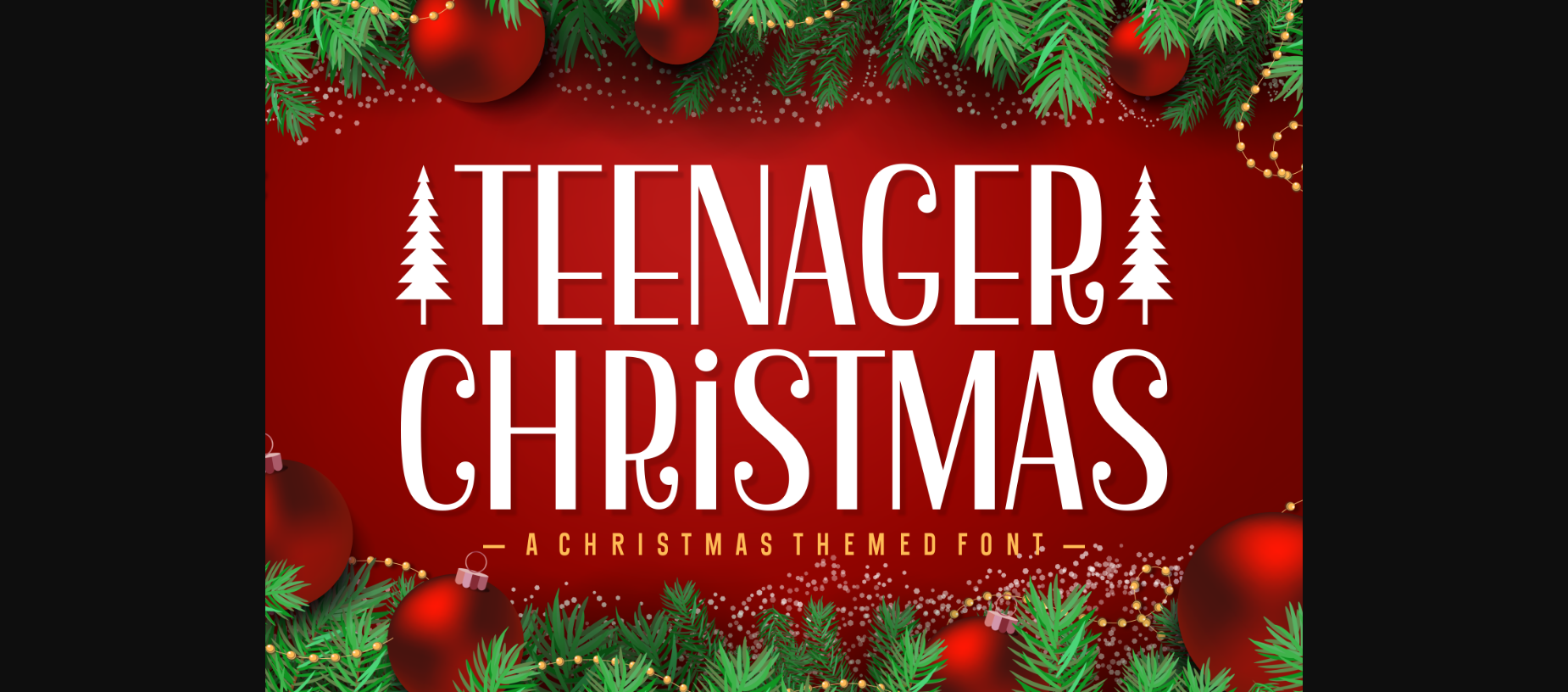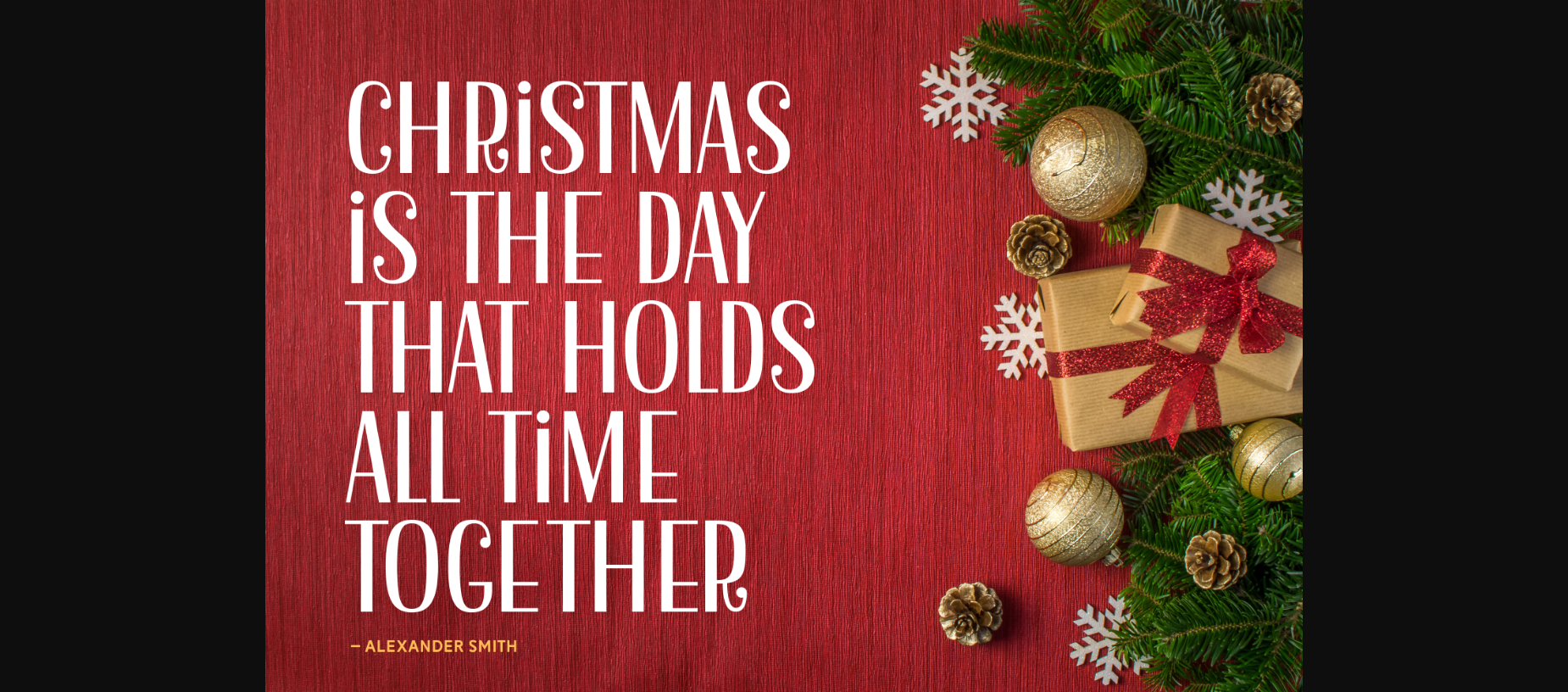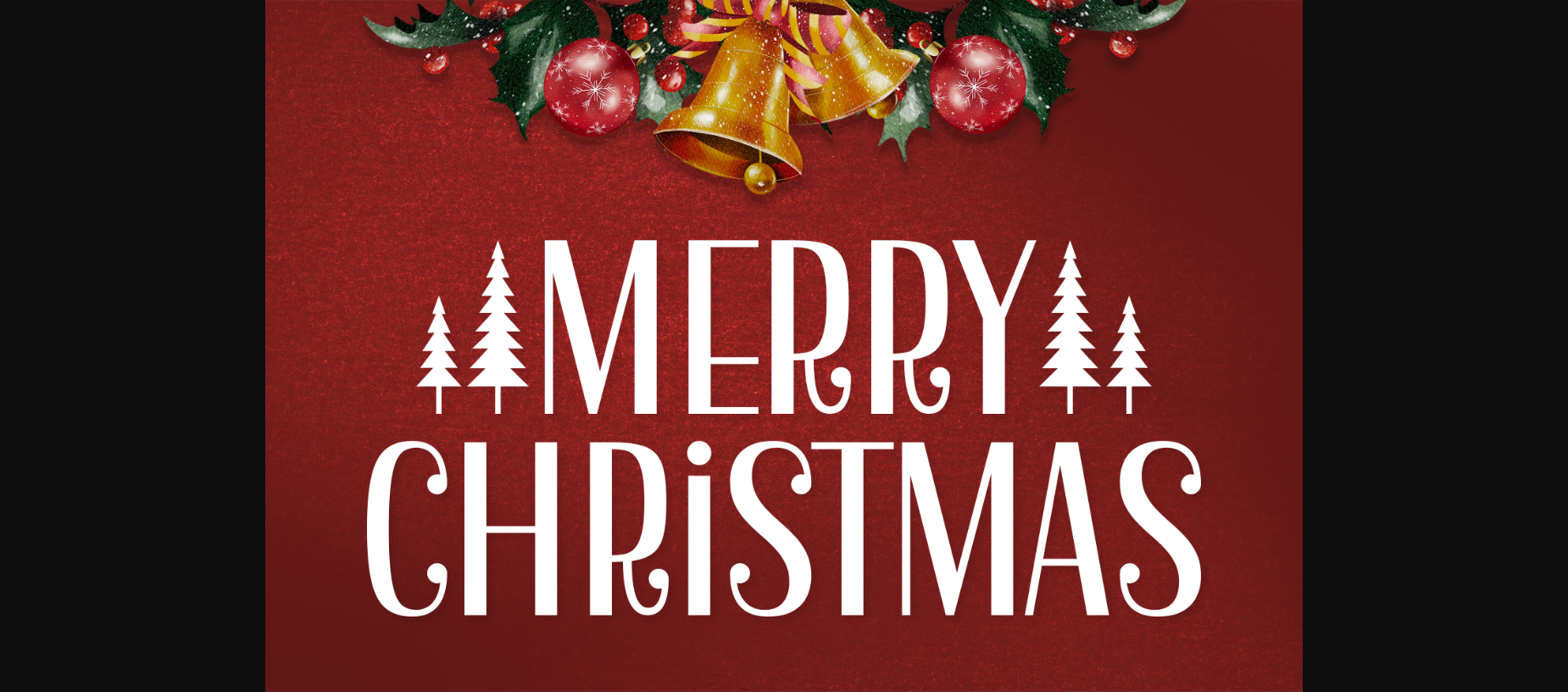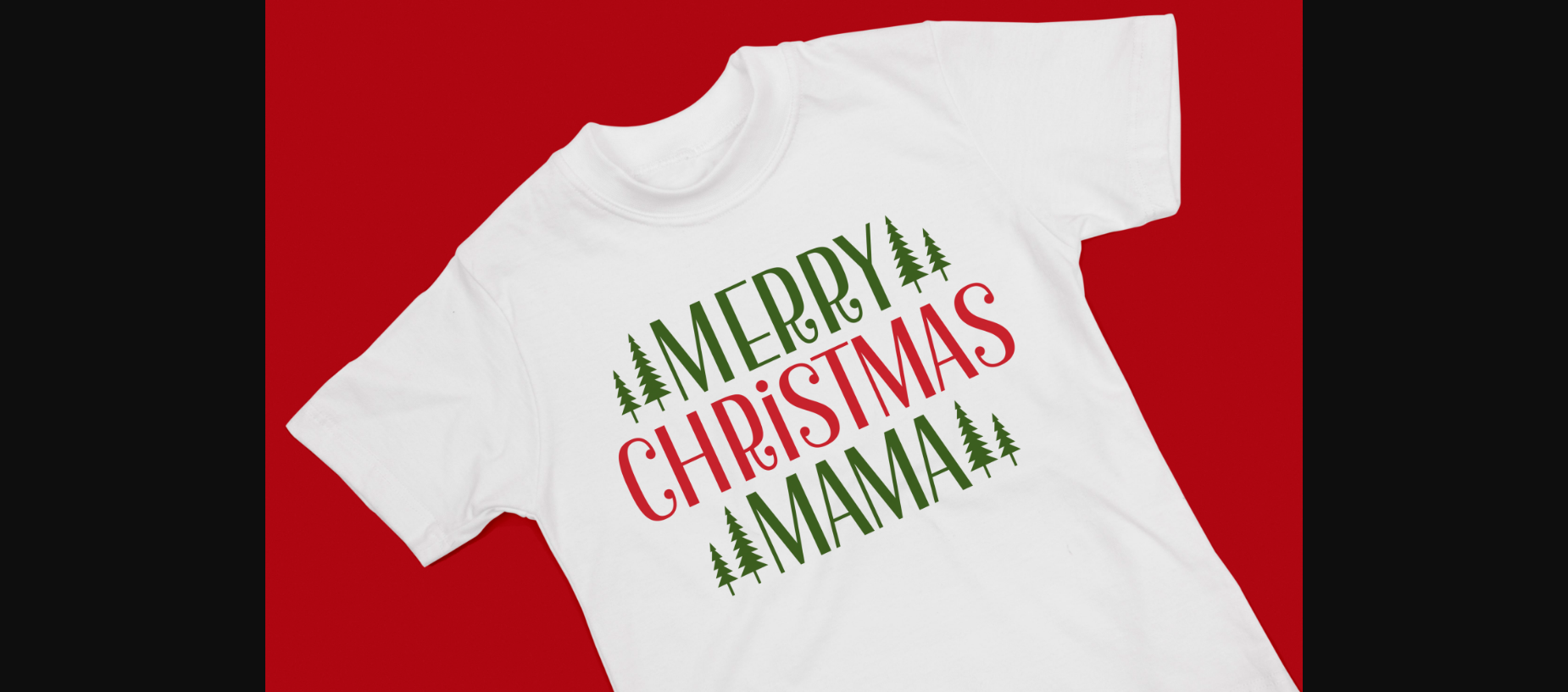
About Teenager Christmas Font
Teenager Christmas font is a playful and festive typeface that captures the youthful spirit of the holiday season. With its fun and quirky design, this font adds a touch of holiday cheer to your Christmas-themed designs. Ideal for creating lively holiday cards, party invitations, and festive decorations that reflect the joy of being a teenager during Christmas.